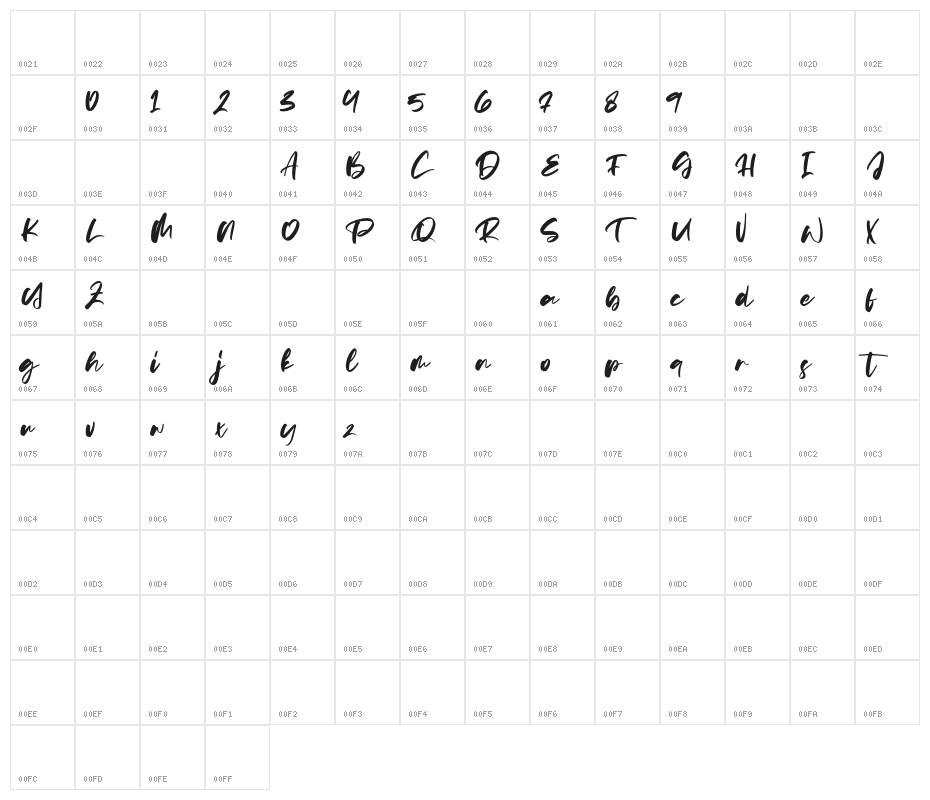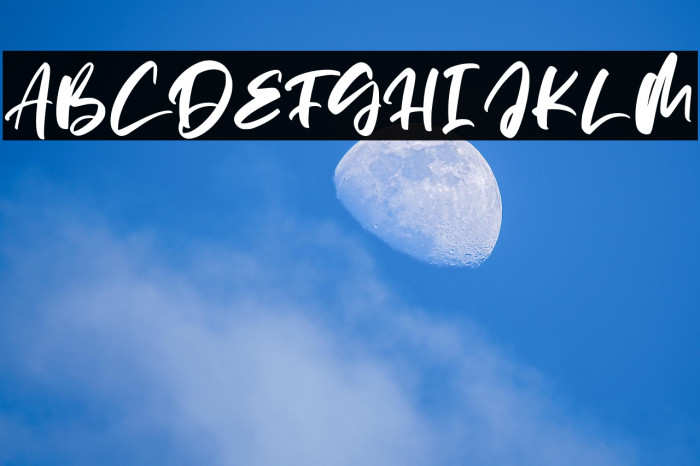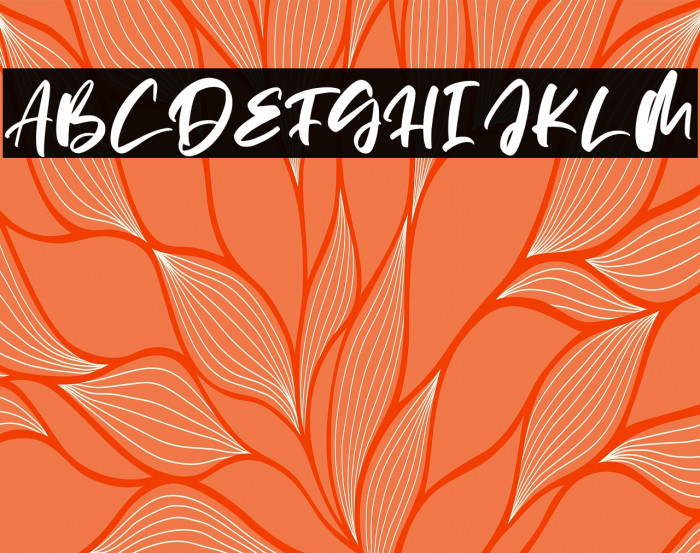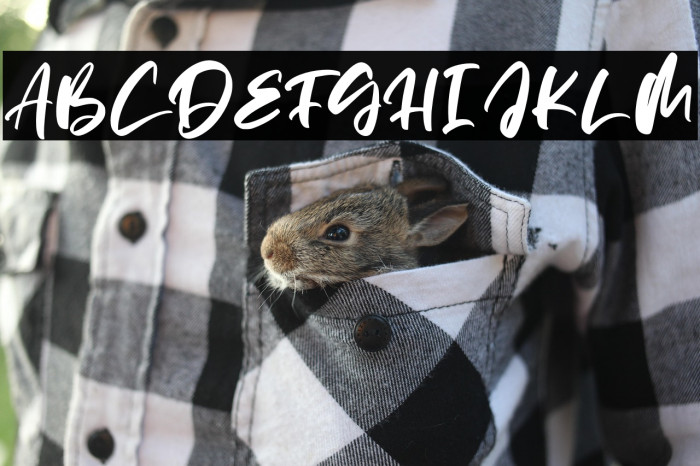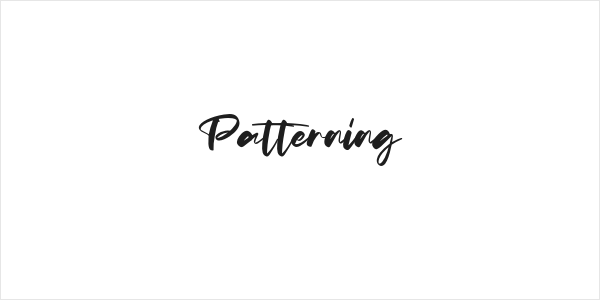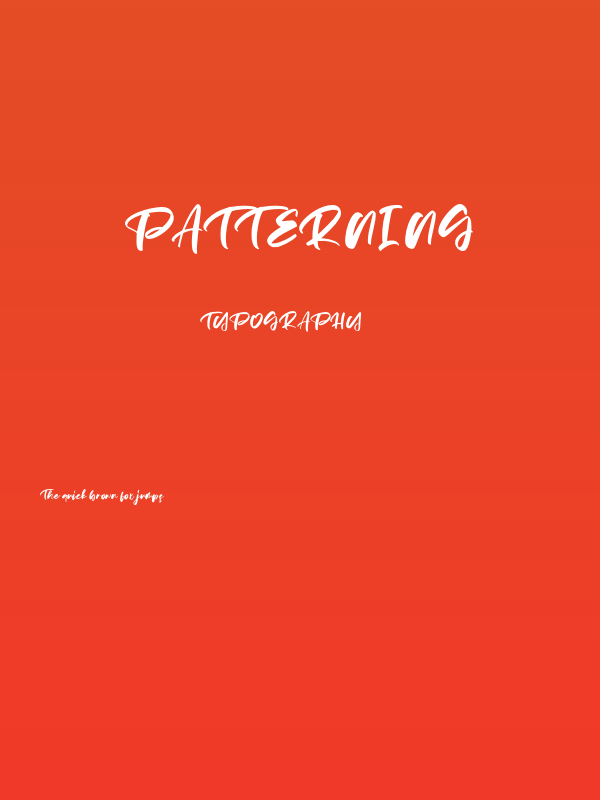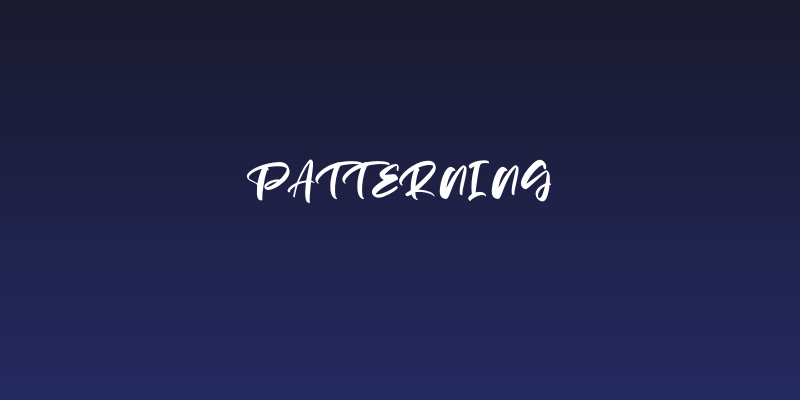
Patterning Font
Patterning Description
This font exhibits a bold and expressive handwritten style, characterized by its fluid and dynamic strokes. The letters are crafted with a natural flow, giving them an organic and artistic appearance. The uppercase and lowercase letters maintain a consistent style, with a slight slant that adds to the casual and relaxed feel. The numbers and special characters are equally expressive, maintaining the same boldness and fluidity. This font is ideal for projects that require a personal touch or a creative flair, such as invitations, greeting cards, or artistic branding.
| Use Case | Logos, Headlines, Artistic projects |
| Proposed Projects | Ideal for invitations, greeting cards, artistic branding, and creative projects. |